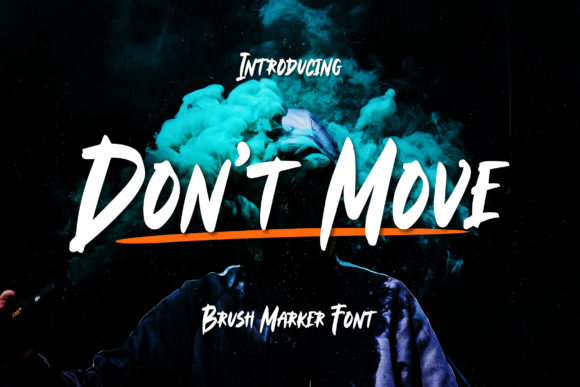
Introducing Don't Move - the ultimate display font that exudes urban grit and artistic flair. Inspired by the vibrant world of street art, this font captures the essence of raw energy and youthful rebellion. Unleash your creativity and make a bold statement with Don't Move.
With its captivating letterforms and dynamic flow, Don't Move is the perfect choice for those seeking to create impactful designs that demand attention. Dive into a world of limitless possibilities, where your imagination takes center stage. Whether you're designing t-shirts, sportswear, logos, advertisements, or clothing, Don't Move will elevate your designs to new heights.
Don't Move is meticulously crafted with precision and attention to detail, ensuring that every letter, glyph, and ligature is rendered with utmost clarity and beauty. Its PUA encoding makes it incredibly user-friendly, allowing you to effortlessly incorporate stunning characters and stylistic alternates into your designs.
Don't let your designs be ordinary - embrace the extraordinary with Don't Move. Join the ranks of creative visionaries who dare to push boundaries and make a lasting impact. Let your designs resonate with the raw power and rebellious spirit of street art. Don't Move is more than just a font; it's an artistic statement that will transform your designs into masterpieces.